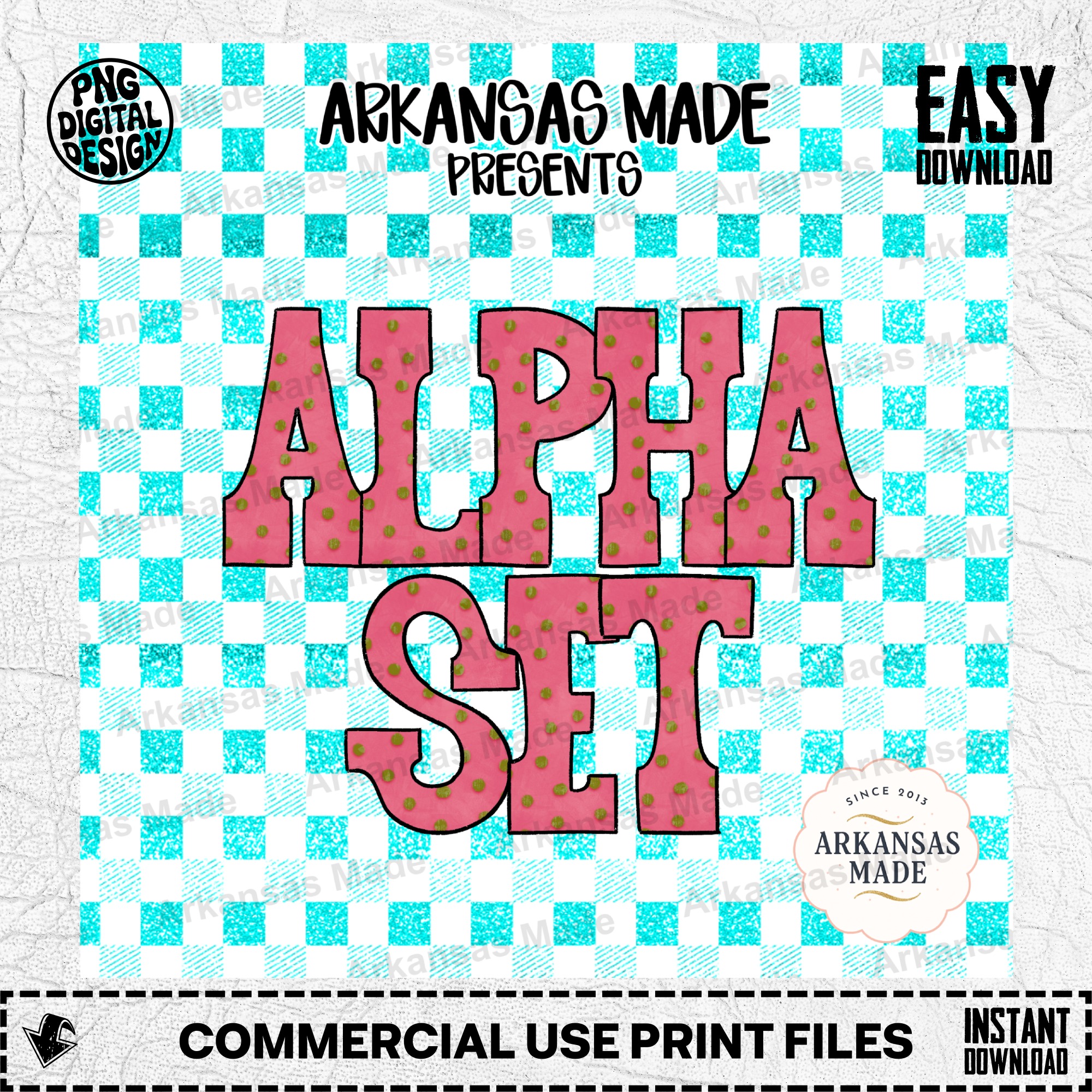
Pink Green Polka Dot Alpha PNGs Digital Alphabet Set Sublimation Design Block Letters Bubble Font Distressed Crafting Supply
Unleash your creativity with this vibrant Pink Green Polka Dot Alpha PNGs digital alphabet set, perfect for all your crafting needs. This cheerful sublimation design features playful block letters with a distressed texture, ideal for custom t-shirts, tumblers, and personalized gifts. Crafters and DIY enthusiasts will adore this versatile digital download for school spirit projects, team apparel, or adding a fun touch to any item.